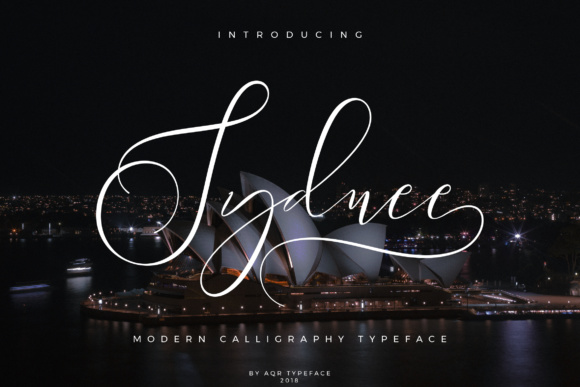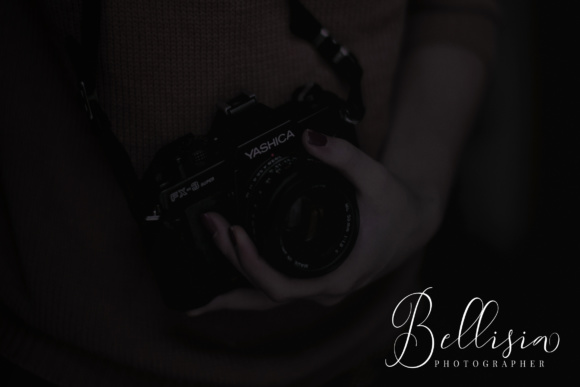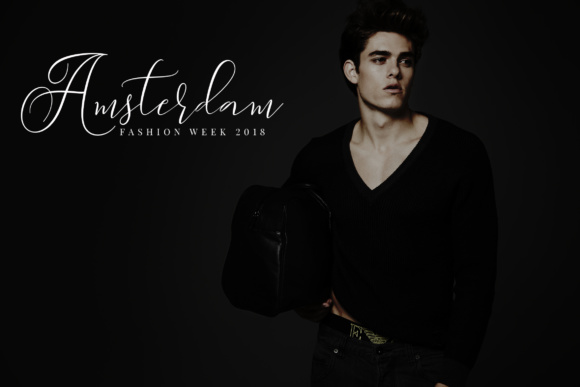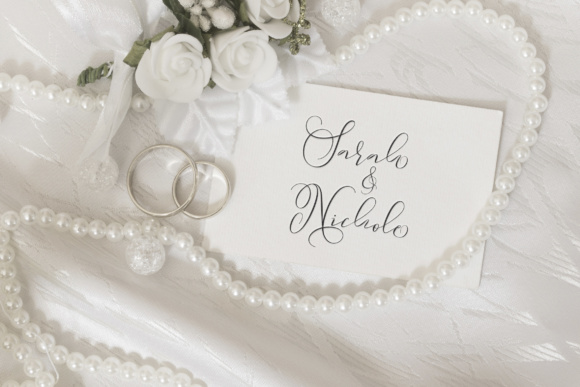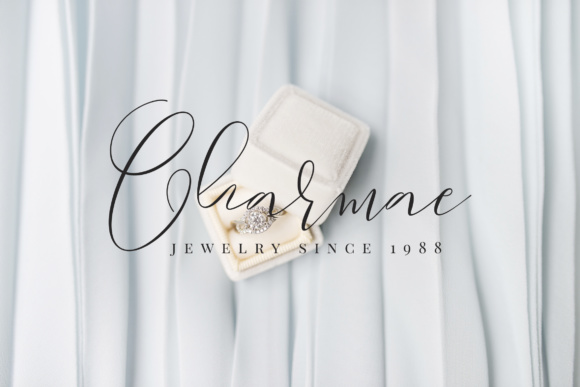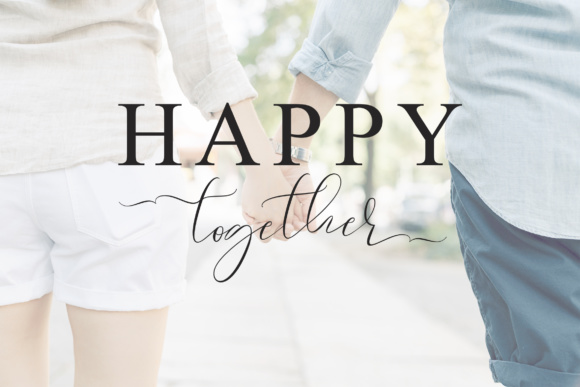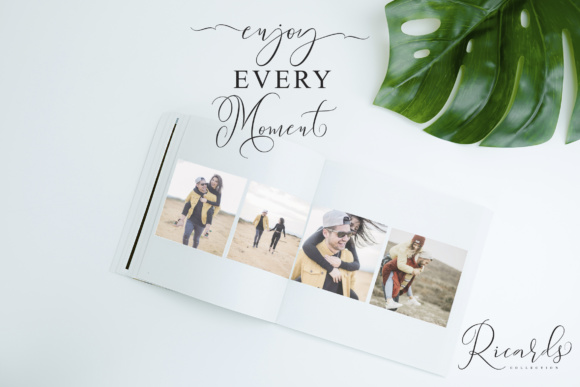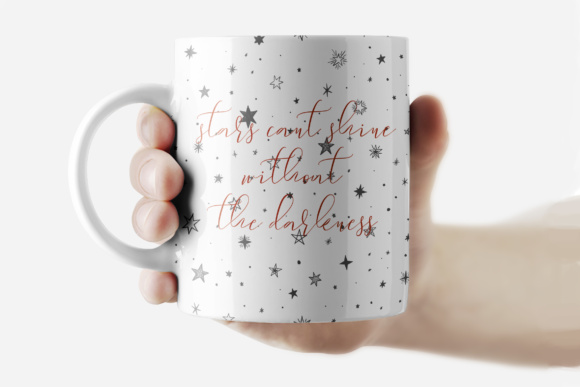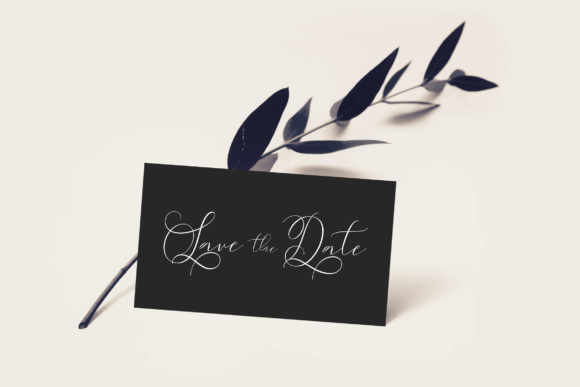
Sydnee Font
About Sydnee Font
Sydnee is a stunning and feminine script font, ideal for use in displays in print collateral or fashion! This font espouses over 600 glyphs, and can give your designs a unique and luxurious look.